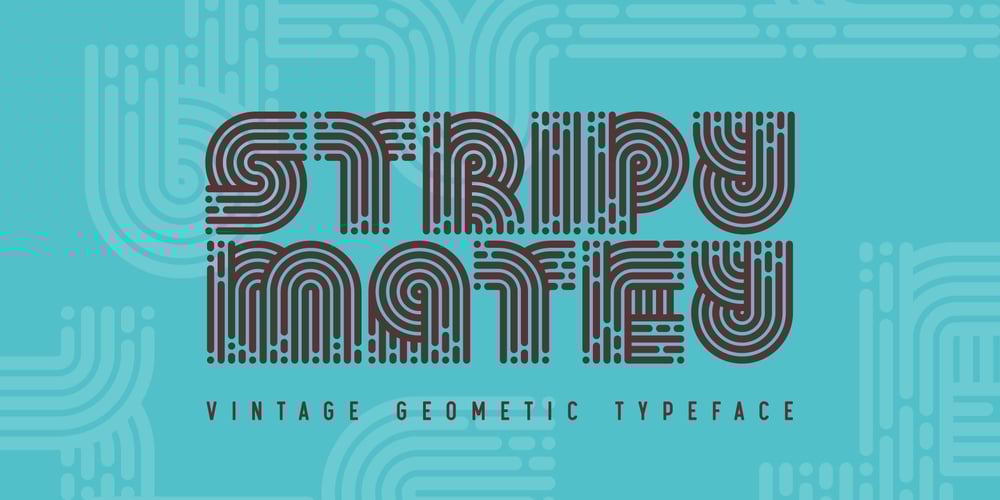
Stripy Matey
Stripy Matey font
Stripy Matey Font Family was designed by Gleb Guralnyk and published by Gleb Guralnyk. Stripy Matey contains 1 styles and family package options. Hello! Introducing a geometric style font — Stripy Matey. It’s a vintage look smooth typeface built of dashed flowing lines. Stripy Matey font has multilingual support (check out a screenshot with available letters and signs).Thank you and wish you a peaceful sky!